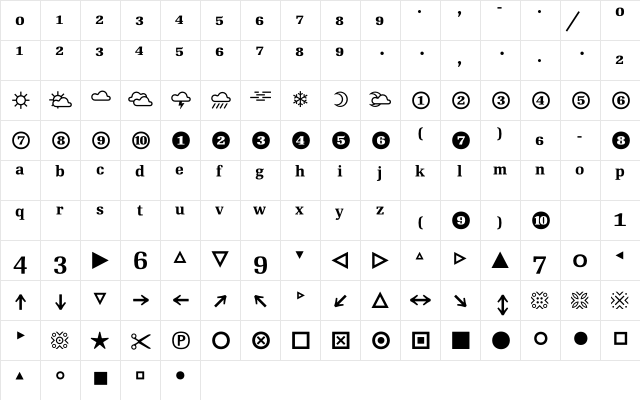
RePublic Book Bold Expert
Design Context for RePublic Book Typeface
RePublic Book offers clean, dependable letterforms without strong stylistic allegiance, making it a practical choice for designers who need flexibility. The heavy weight commands attention and anchors typographic hierarchies.
Pro Tip: Use RePublic Book in both headline and body roles to test its range before committing to a single application.